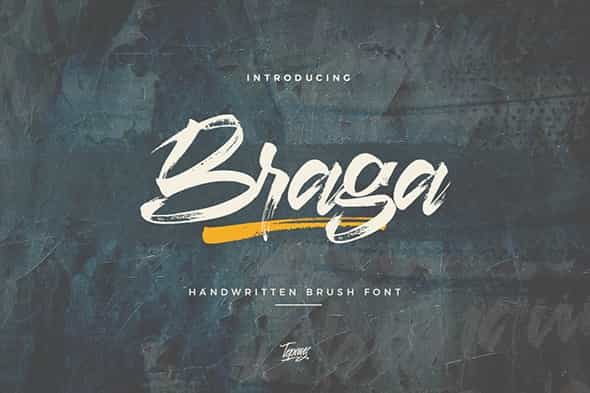
Braga is rough brush script font with a distinct style and a dramatic motion. This font is ideal for your next design project, such as logos and printed quotes invitations, cards packaging for products, headers, Poster, Letterhead, Logotype Apparel Design Labels, and so on.